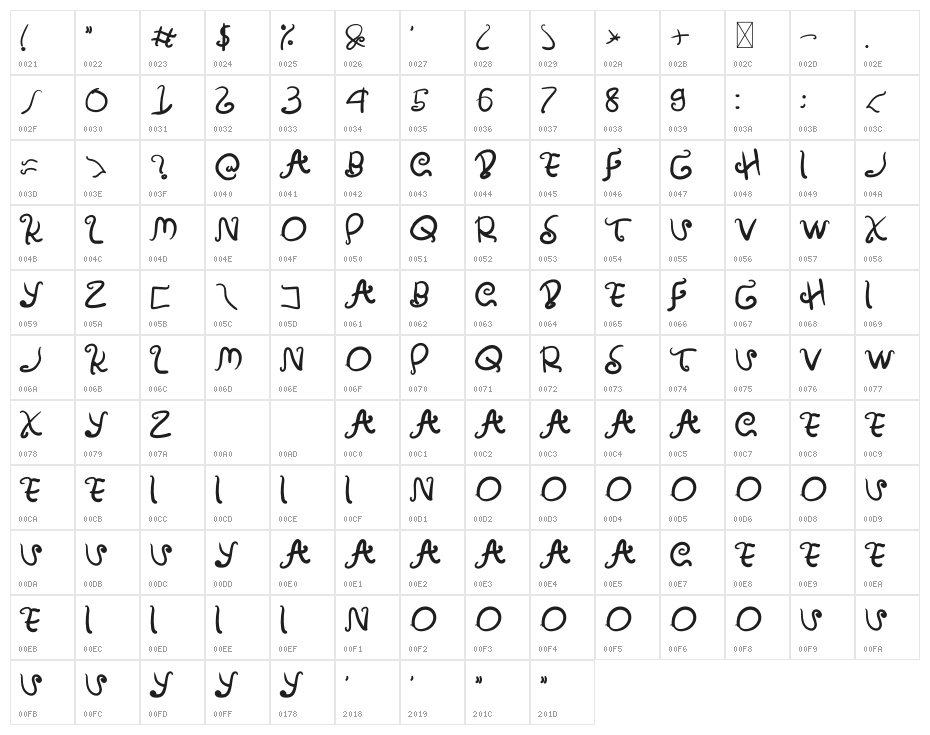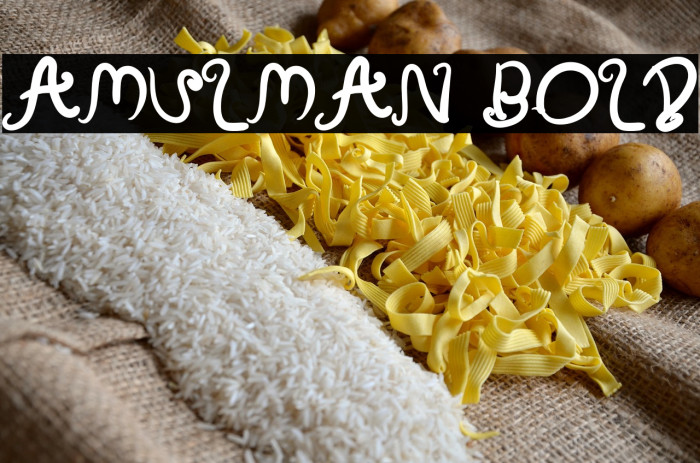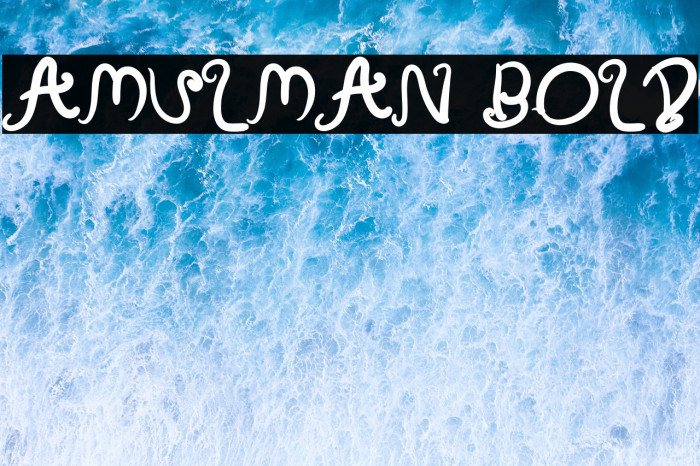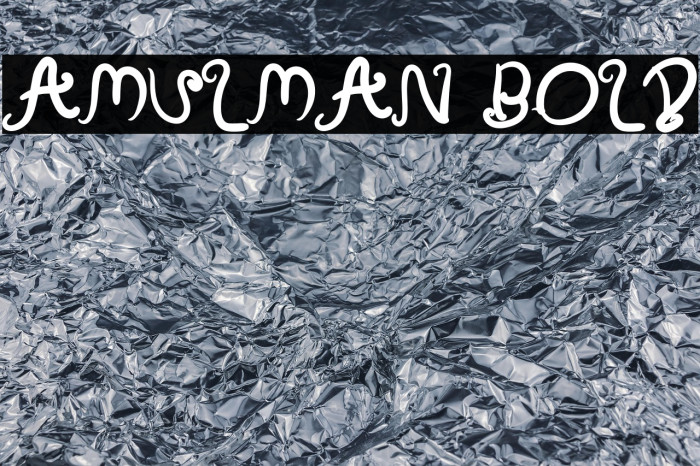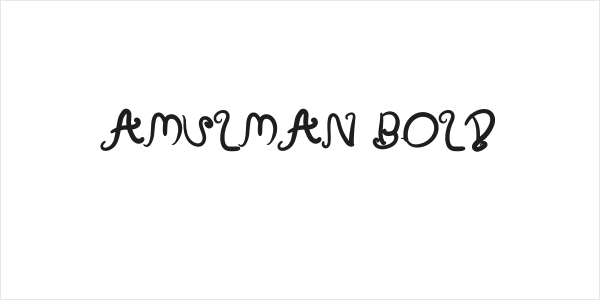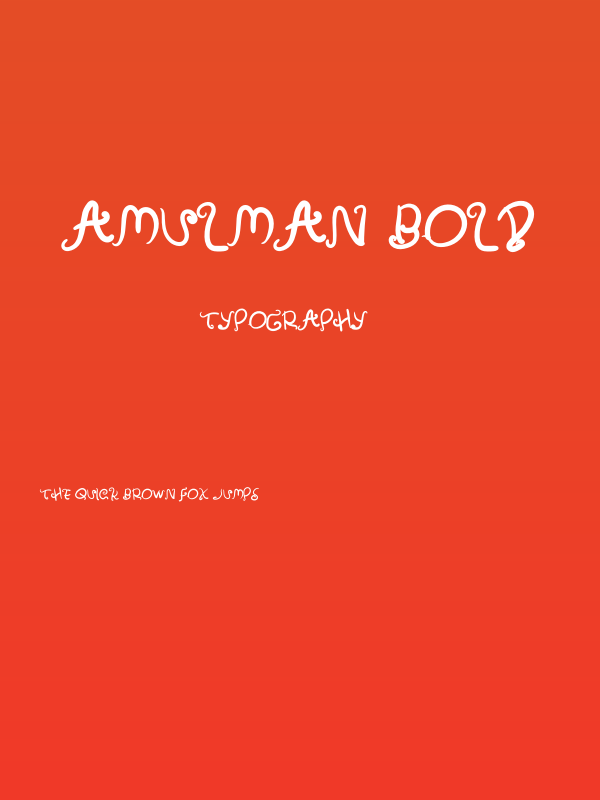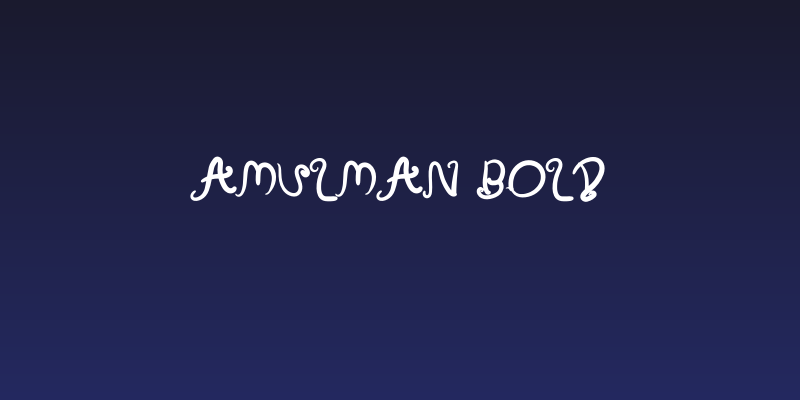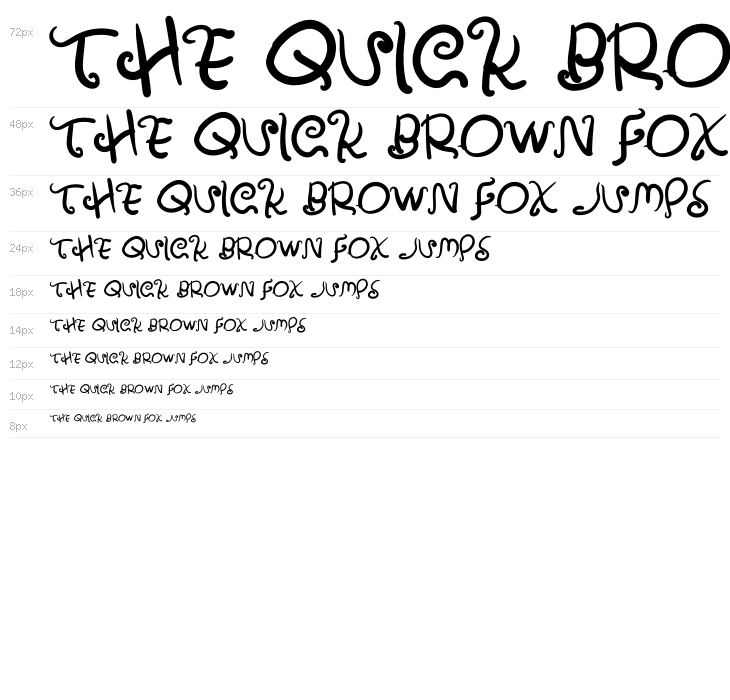
Amulman Bold Font
| Anwendungsfall | Logos, Headlines, Invitations |
| Vorgeschlagene Projekte | Ideal for creative projects such as invitations, greeting cards, posters, and branding materials that require a whimsical and artistic touch. |